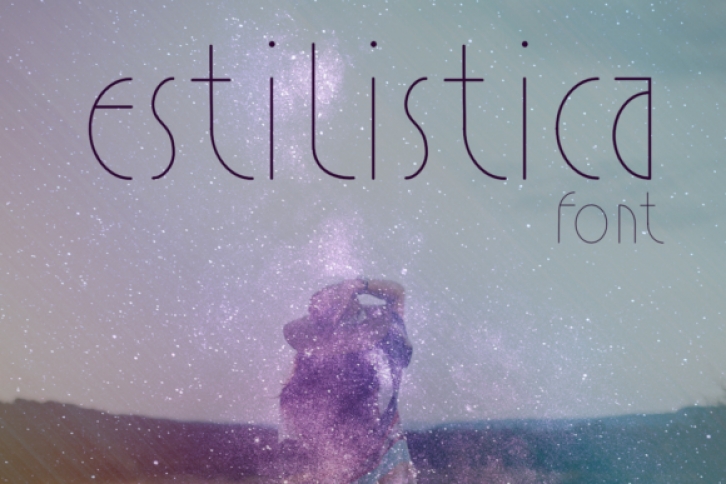
Estilistica is a cute and original sans serif font, carefully handcrafted to become a true favorite. Its casual charm makes it appear wonderfully down-to-earth, readable and, ultimately, incredibly versatile. Estilistica will look outstanding in any context, whether it’s being used on busy backgrounds or as a standalone headline!